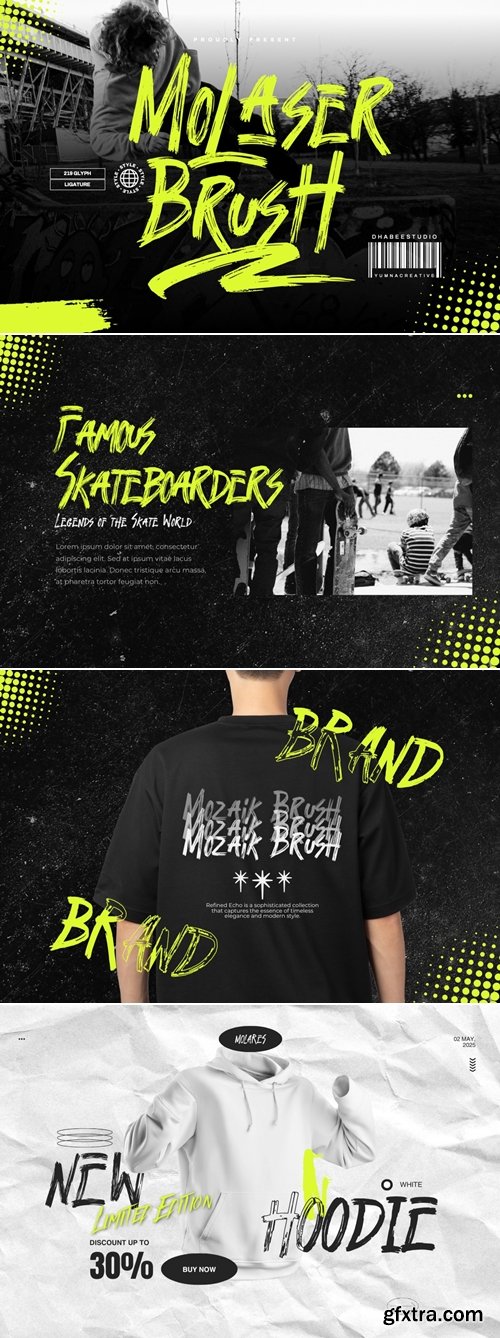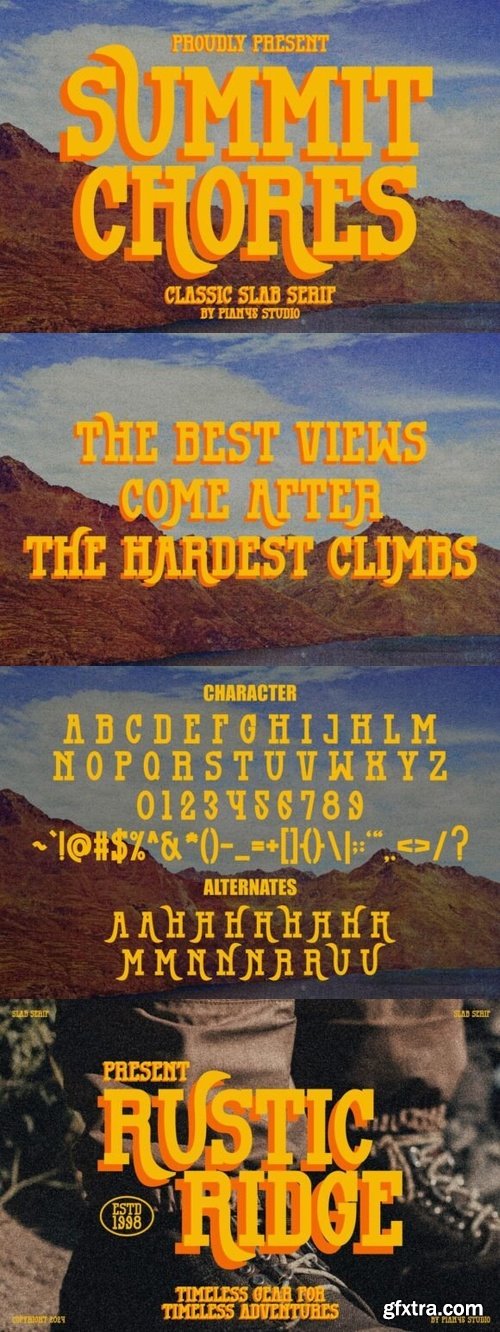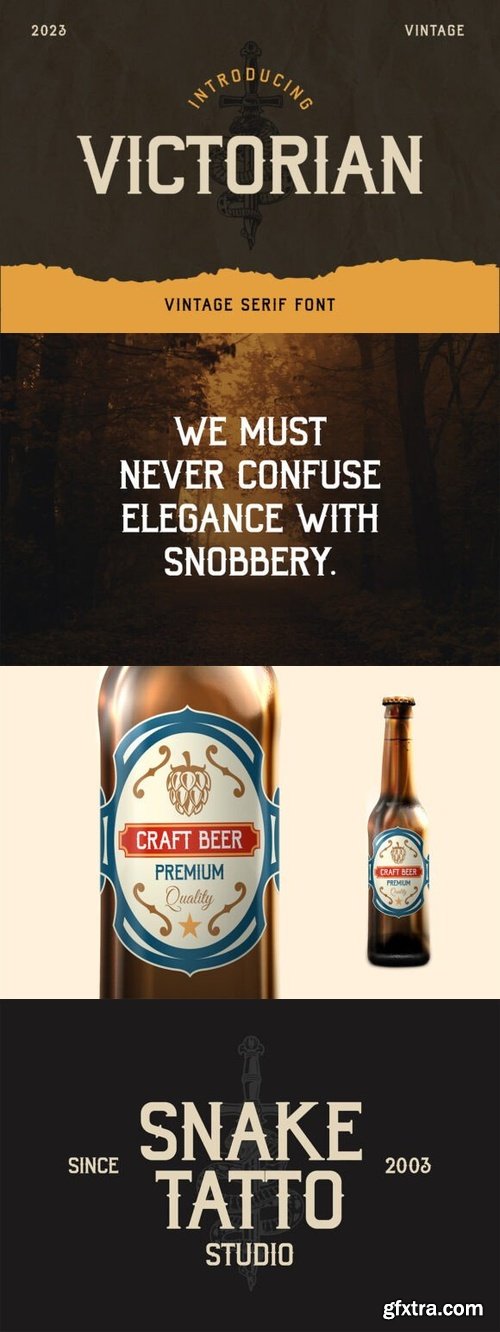
- Molaser Brush - Ink Brush Font which has a hand lettering brush style. So it looks natural like a handmade. This texture is very detailed. This font is suitable for logos, product branding, printable templates or for text overlay to any background image, also suitable for use in title design. Such as apparel, invitations, books tittle, stationery design, quotes, branding, greeting card, t-shirt, packaging design, poster and more.
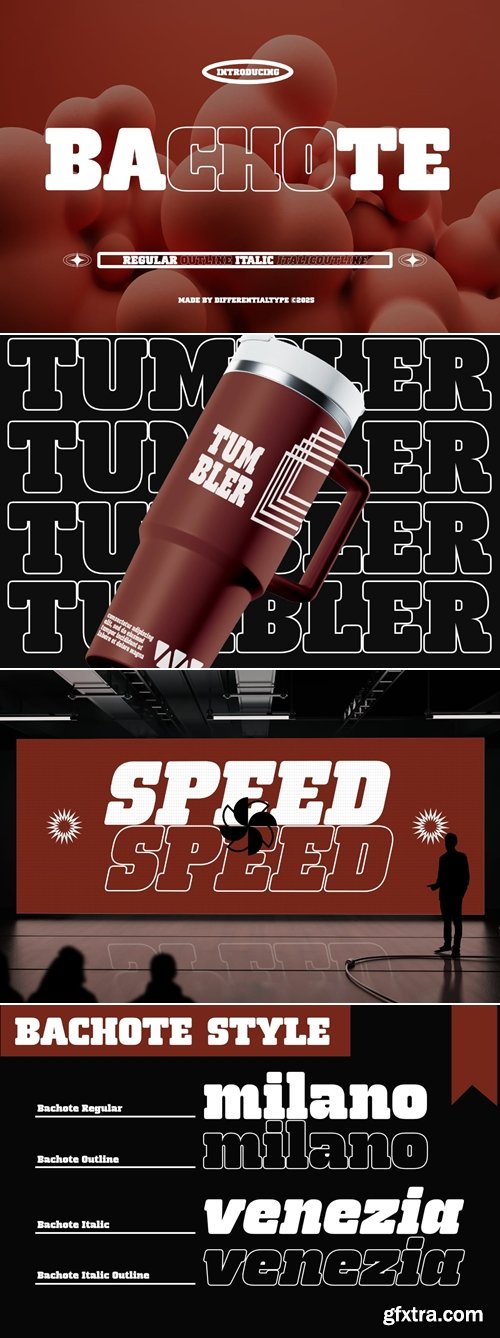
- Bachote is a bold slab font designed specifically for display purposes, ensuring a strong and commanding presence in any design. With its thick, assertive letterforms, Bachote is the perfect choice for posters, product branding, headlines, logos, book titles, and covers. Its powerful structure creates a striking contrast, making text stand out while reinforcing the intended message. Whether used in print or digital media, Bachote guarantees a captivating and authoritative visual impact that cannot be overlooked.
- This font offers four distinct styles—regular, italic, outline, italic outline—providing designers with the versatility to experiment and adapt to various creative projects. The combination of weight and precision makes Bachote an ideal tool for those looking to establish a strong visual identity with confidence and style. Whether you're designing for high-impact branding or eye-catching promotional materials, Bachote delivers a bold yet refined aesthetic that leaves a lasting impression.
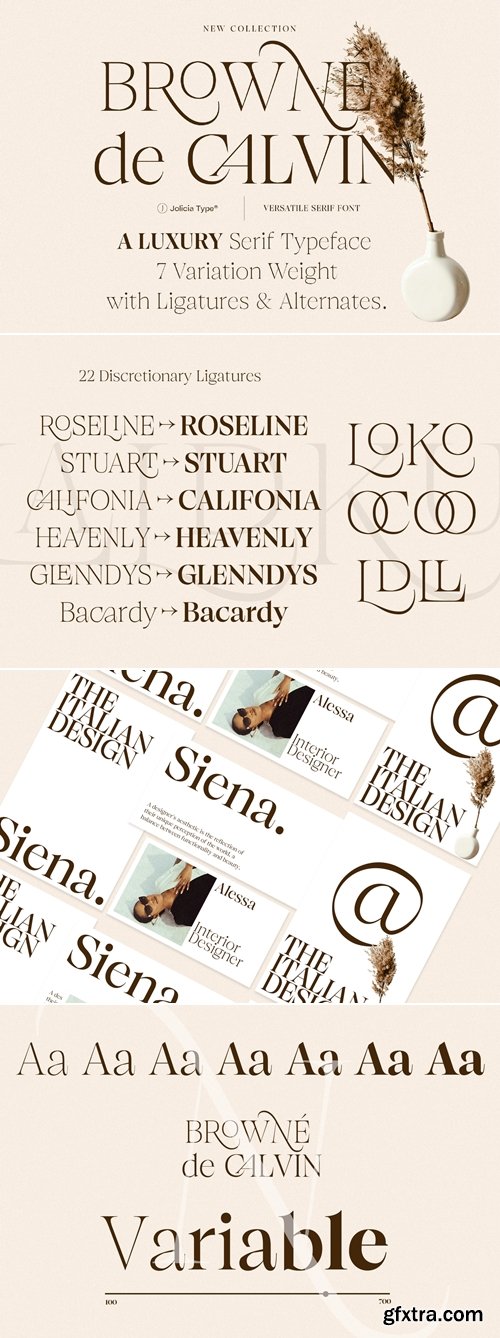
- Introducing Browne de Calvin, a timeless serif typeface crafted with exquisite elegance and sophisticated precision. Designed to embody the spirit of luxury, Browne de Calvin blends the classic beauty of Roman serif tradition with a contemporary refinement, making it a perfect choice for high-end branding, editorial designs, invitations, and more.
- Browne de Calvin features a rich OpenType system, offering 22 finely designed ligatures and 10 stylistic alternates to enhance your typography and unlock limitless creative possibilities. Whether you’re aiming for an editorial flourish or a minimalist aesthetic, the custom features allow you to tailor each composition beautifully. With a versatile range of 7 meticulously crafted weights — from Thin to Bold — Browne de Calvin offers full flexibility for both delicate and strong typographic expressions. For even greater control, it also comes with a Variable Font version, enabling seamless weight adjustments to match your vision perfectly.
- Let Browne de Calvin elevate your designs with its timeless grandeur, where every letterform speaks of grace, precision, and sophistication.
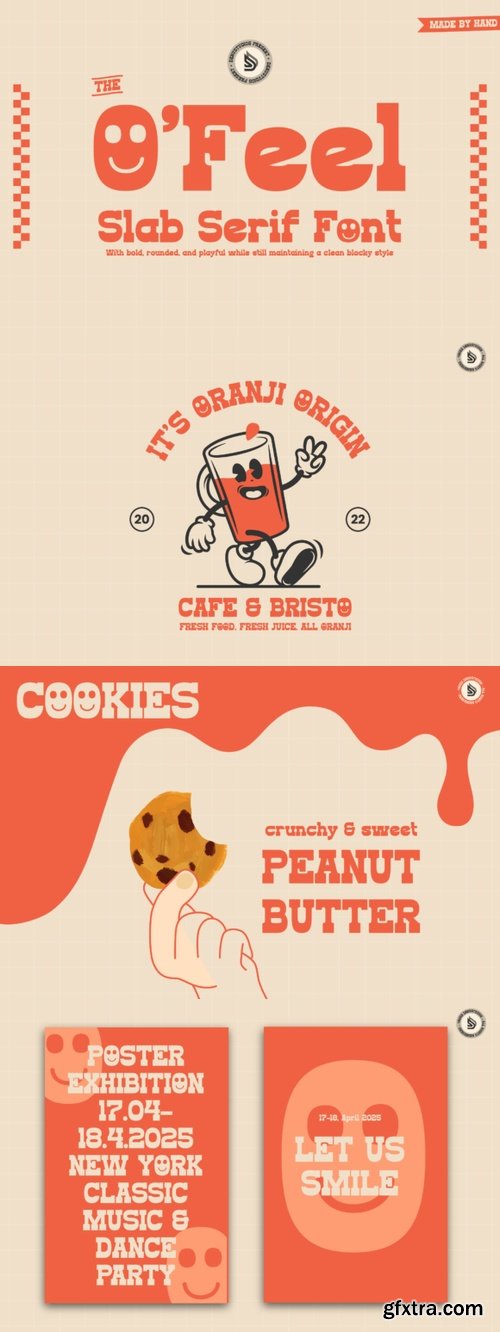
- O_Feel | Slab Serif Font, from Denustudios, suitable for any projects such as: logos, branding projects, homeware designs, product packaging, mugs, quotes, posters, shopping bags, t-shirts, book covers, name card, invitation cards, greeting cards, label, photography, watermark, special events, and all your other lovely projects that need a Slab Serif taste.
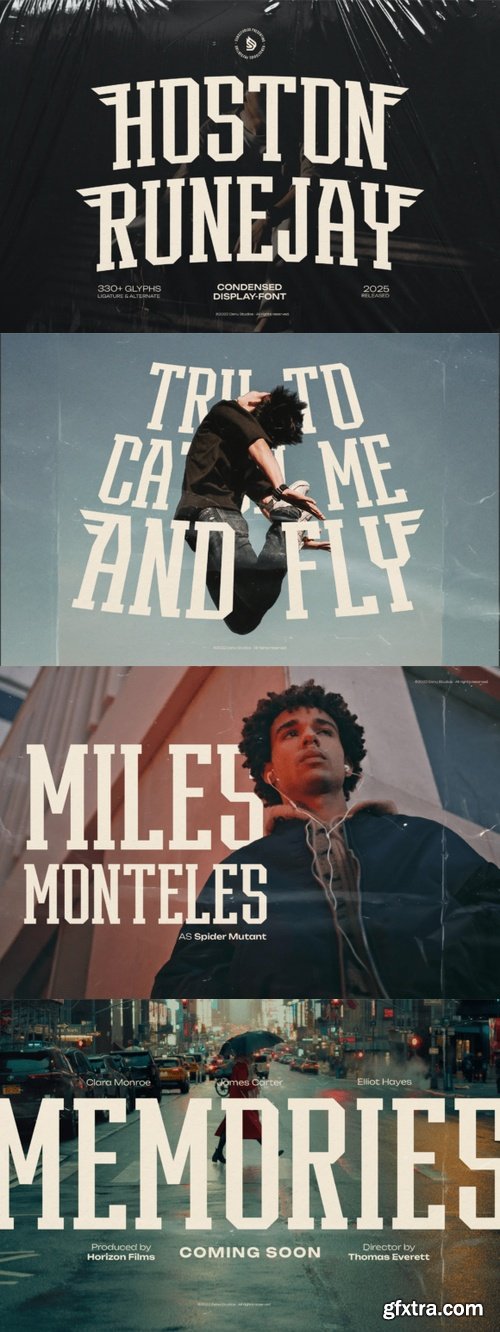
- Hoston Runejay | Condensed Display Font, from Denustudios, suitable for any projects such as: logos, branding projects, homeware designs, product packaging, mugs, quotes, posters, shopping bags, t-shirts, book covers, name card, invitation cards, greeting cards, label, photography, watermark, special events, and all your other lovely projects that need a Condensed Display Font taste.
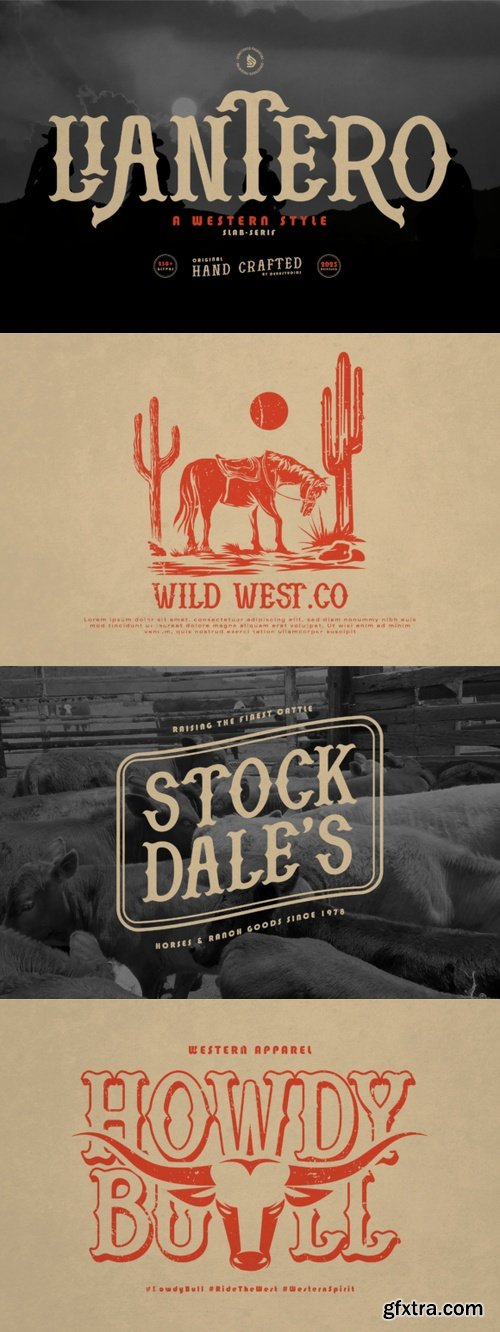
- Liantero is a western style font, suitable for any projects such as: logos, branding projects, homeware designs, product packaging, mugs, quotes, posters, shopping bags, t-shirts, book covers, name card, invitation cards, greeting cards, label, photography, watermark, special events, and all your other lovely projects that need a Western Style taste.
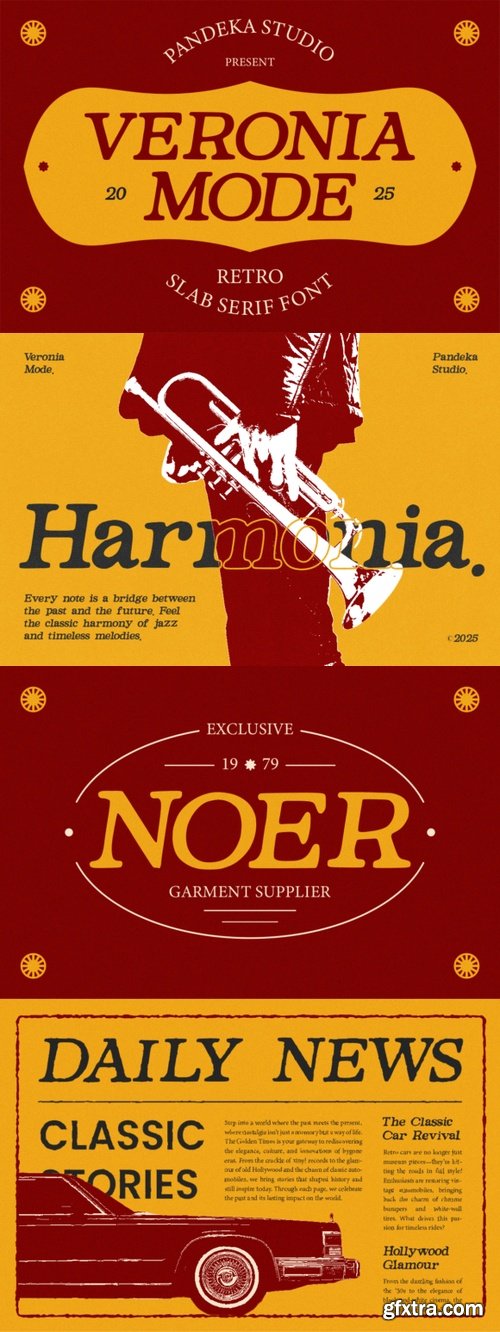
- Veronia Mode is a bold retro slab serif with a vintage aesthetic and classic lettering. Its thick serifs and smooth curves bring a timeless yet stylish display to any design. Perfect for branding, posters, signage, editorial design, packaging, and nostalgic themes, Veronia Mode adds a unique, bold typographic presence with a touch of classic charm.
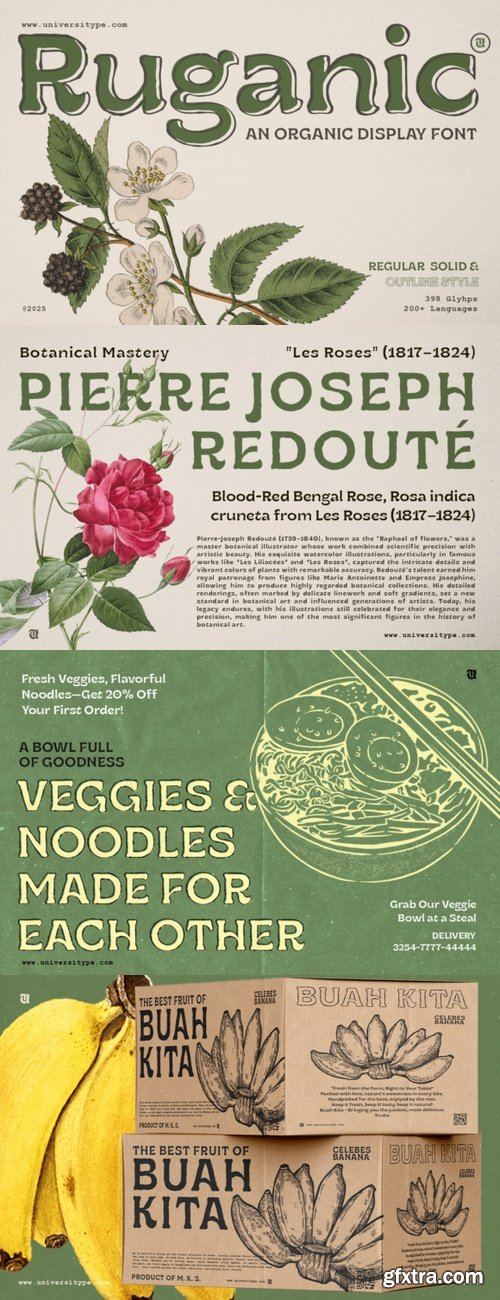
- The UT Ruganic font family is a versatile and distinctive typeface collection that brings an organic, handcrafted aesthetic to any design project. With its unique blend of rustic charm and modern readability, it’s perfect for creating eye-catching visuals that resonate with themes of nature, sustainability, and artisanal quality.
- Qullomest is a experimental classic serif display font. Bold stroke, fun character with a bit of alternates. To give you an extra creative work. Qullomest font support multilingual more than 100+ language. This font is good for logo design, Social media, Movie Titles, Books Titles, a short text even a long text letter and good for your secondary text font with script or serif. Make a stunning work with Qullomest font.